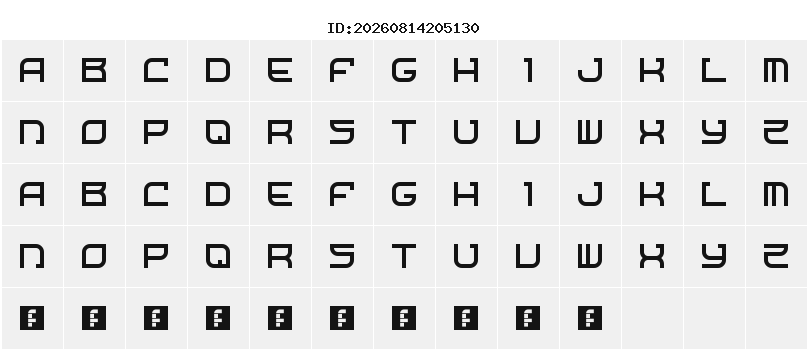
Starship One Preview
• Font Name: Starship One
• Font ID: FontStruct Starship One
• Full Font Name: Starship One Regular
• PostScript Name: Starship-One
• Character Count: 53
• Designer: GeronimoFonts
• Description: ‚ÄúStarship One‚Äù was built with FontStruct
About Starship One.ttf
Starship One.ttf is a modern, elegant sans-serif font designed for ultimate readability and visual harmony. Perfect for branding, headlines, web design, and print materials.